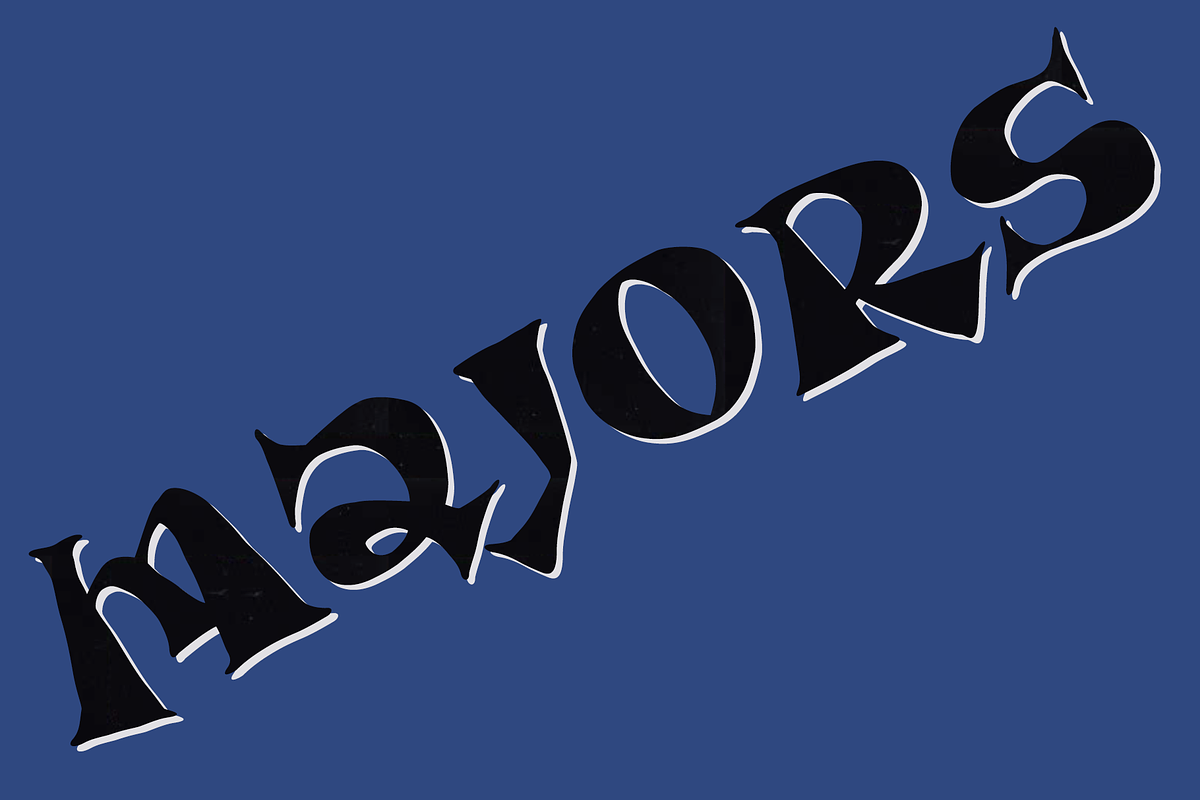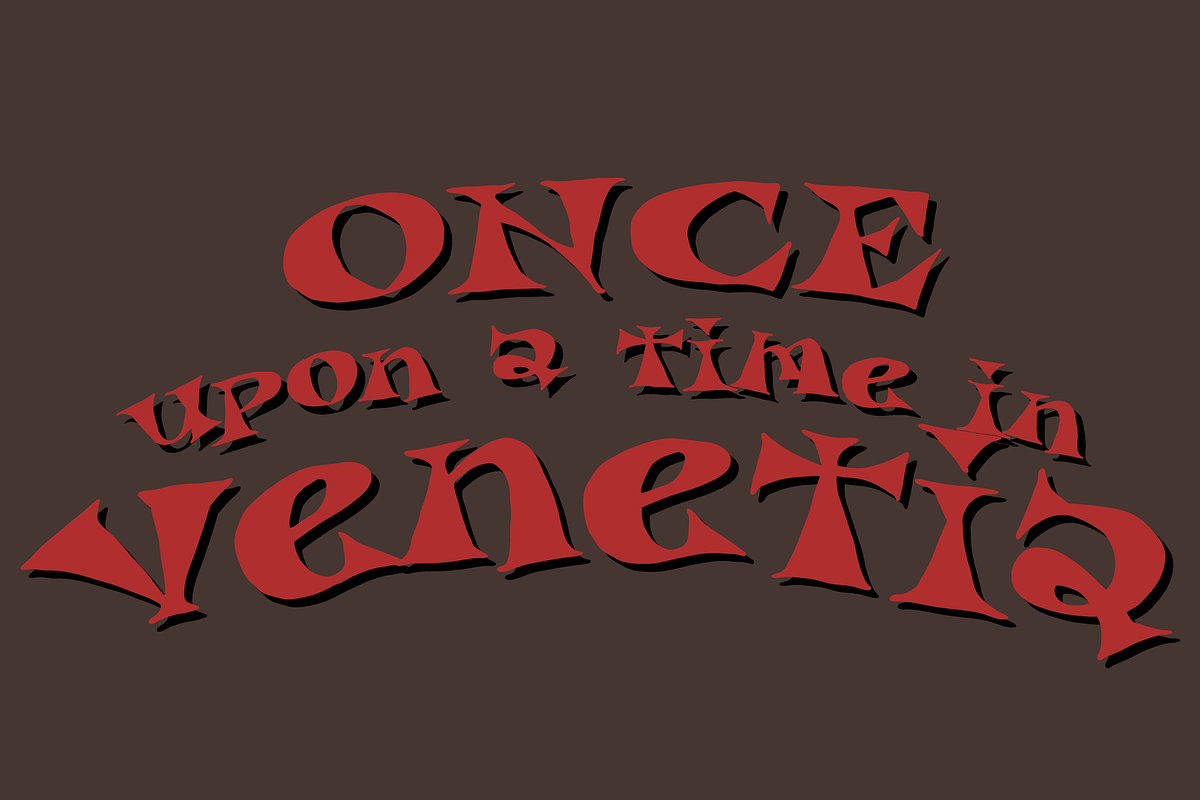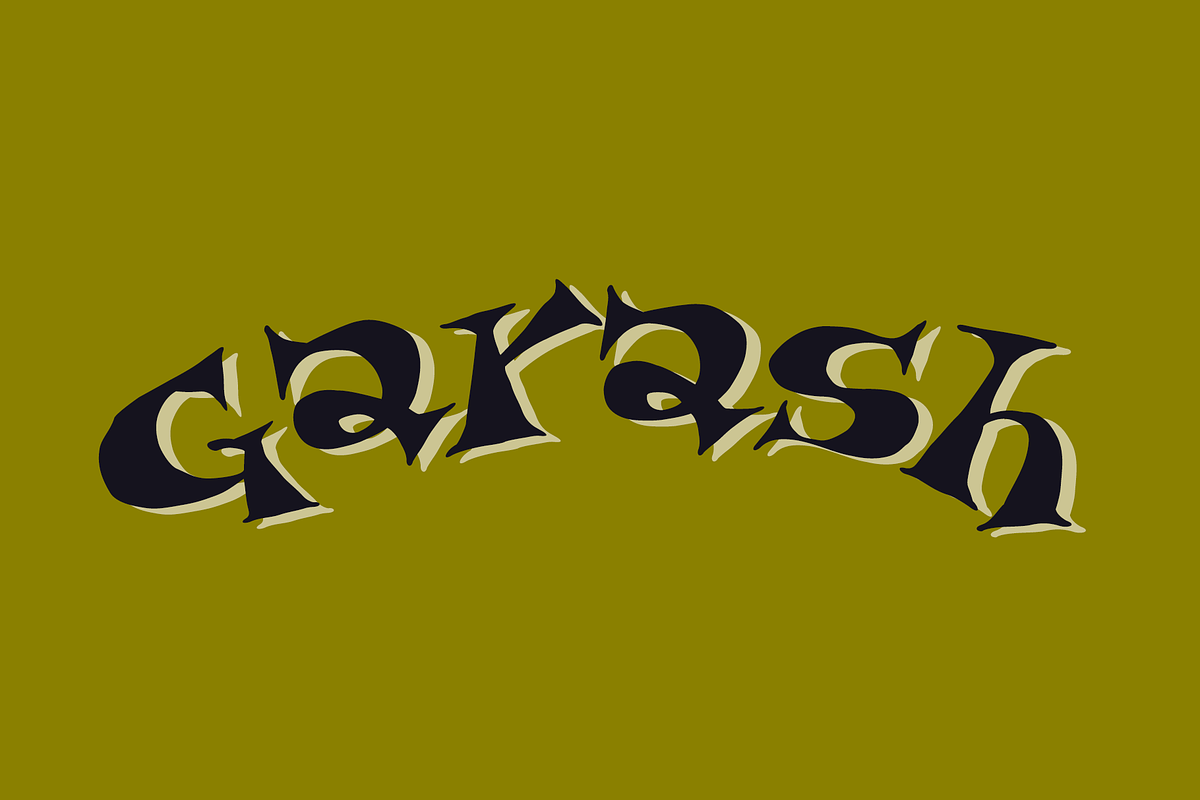
Garash
A highly decorative script inspired by vintage lettering from Eastern Europe.
Its charming, ornate style is perfect for picture books, children’s toys, and other playful, eye-catching designs.